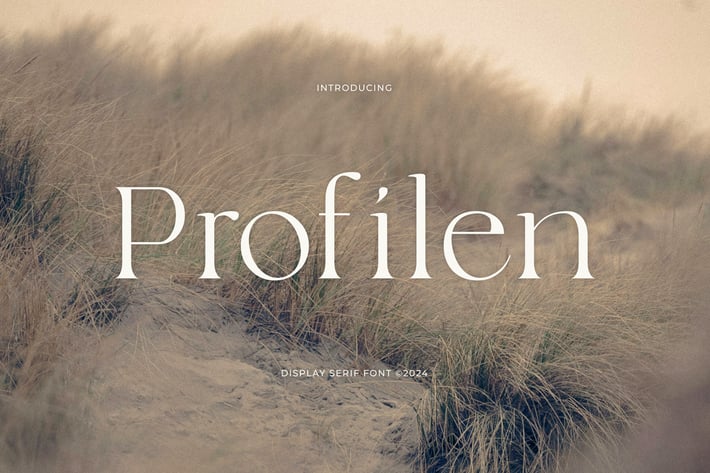
Profilen - Display Serif Font
The Profilen font is a refined display serif typeface that embodies subtle sophistication and understated elegance. Its clean lines and graceful proportions make it ideal for projects that require a touch of class and professionalism. Whether you're designing for editorial spreads, branding, or minimalist posters, Profilen adds a timeless charm that enhances the overall aesthetic.
- Uppercase & Lowercase
- Numeral & Punctuation
- Multilingual accents